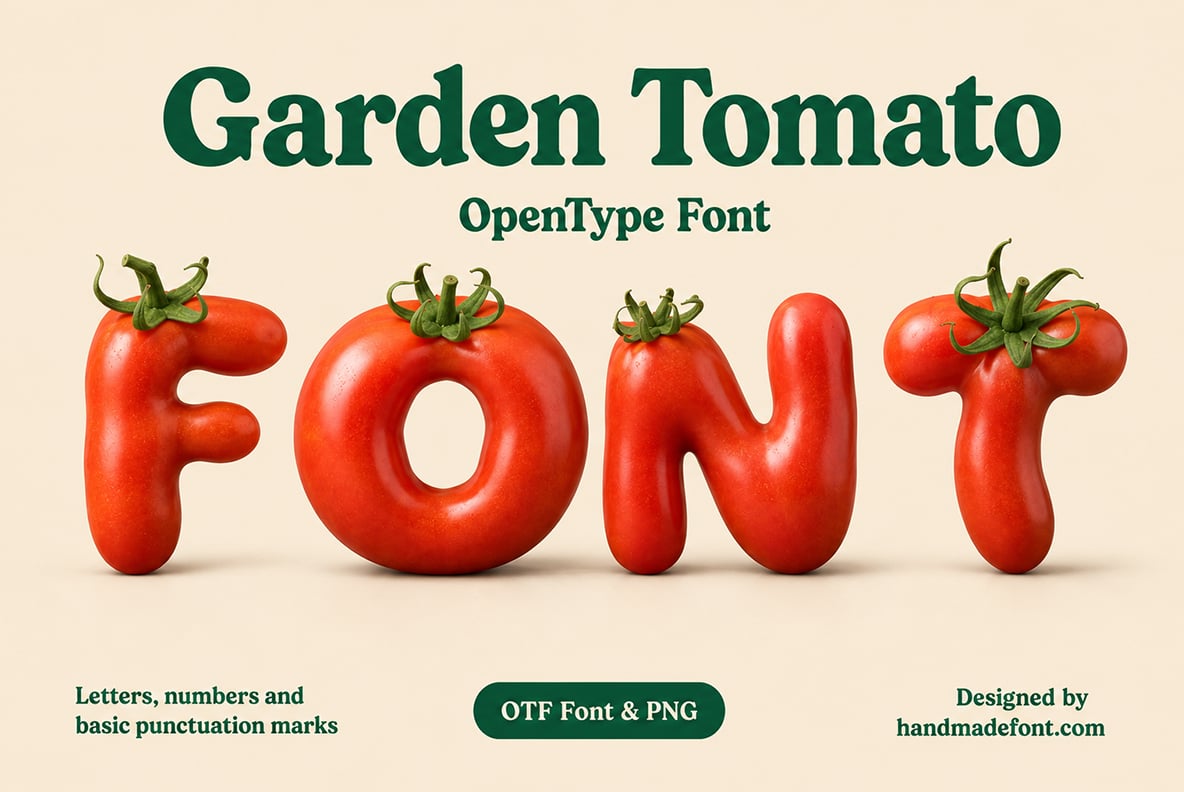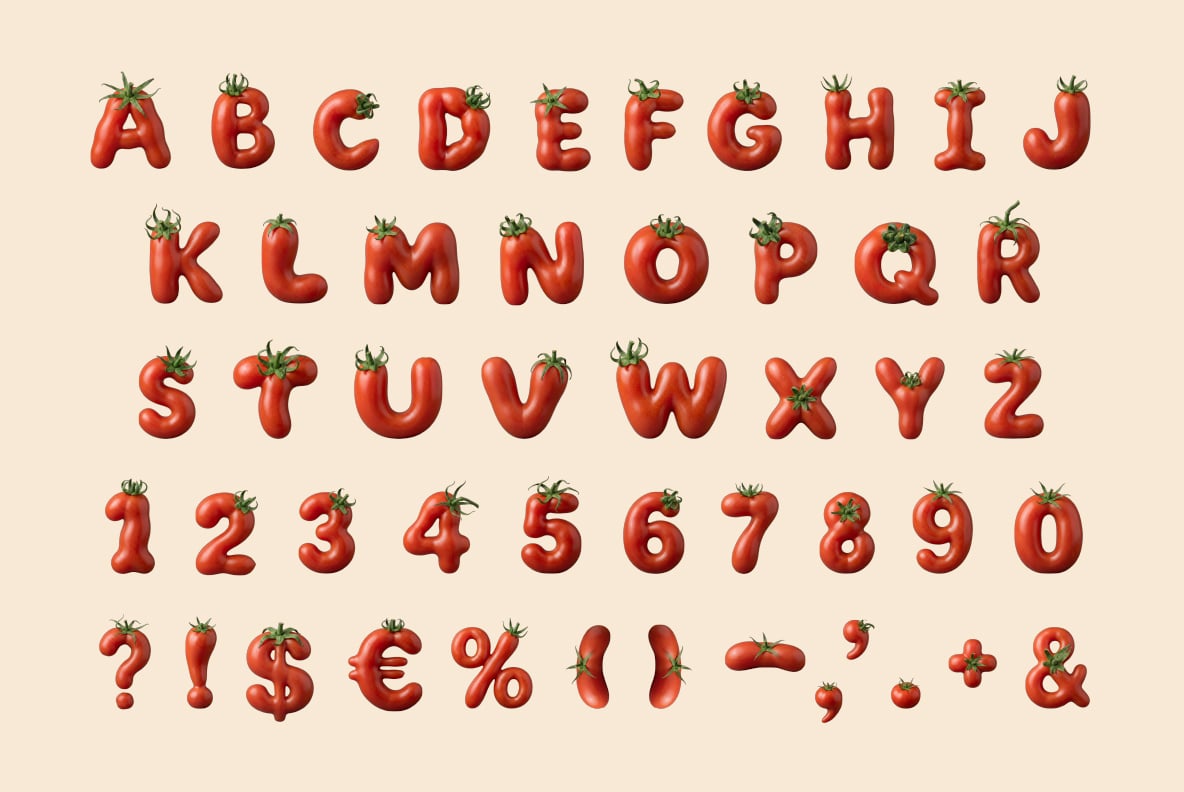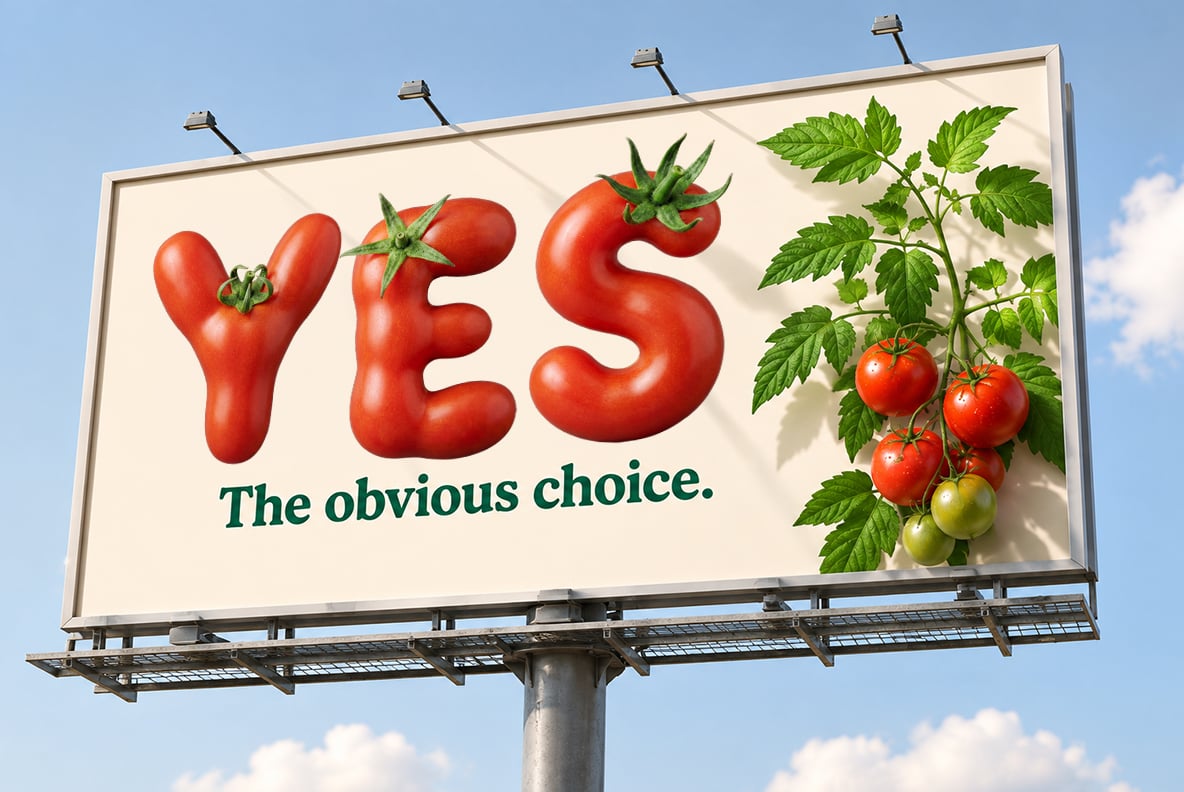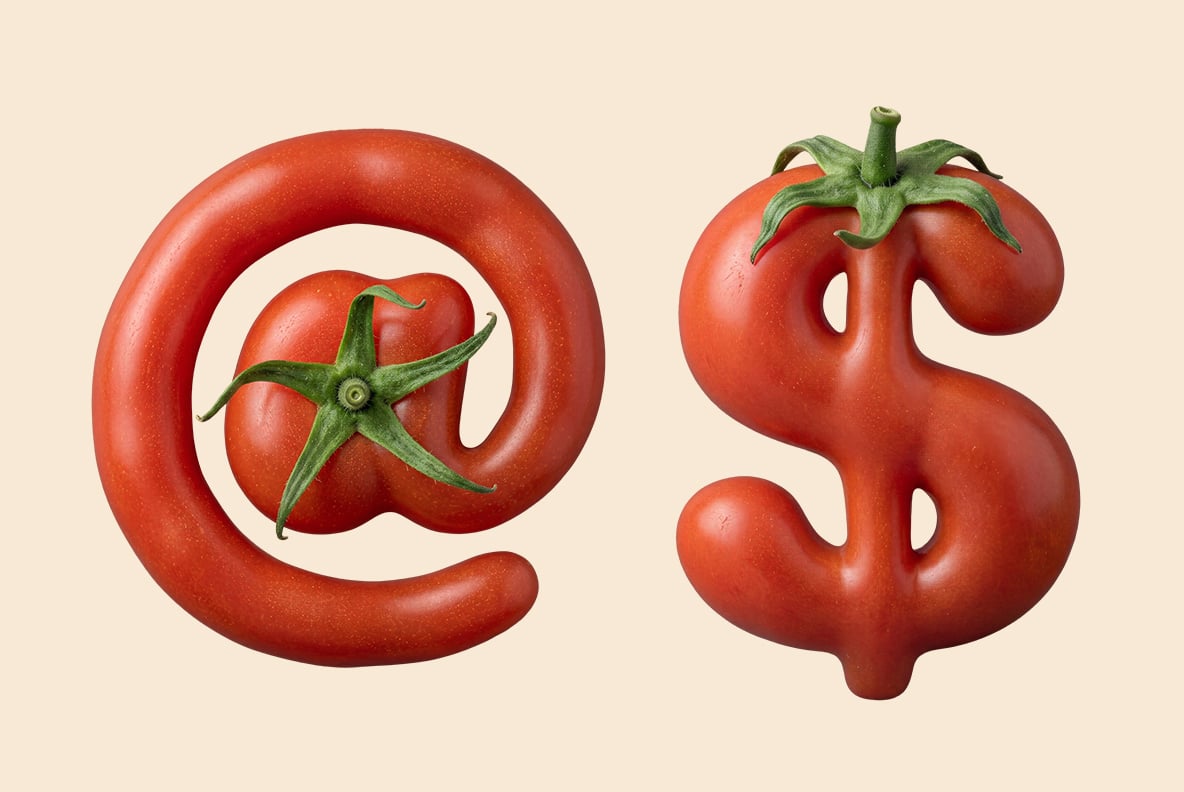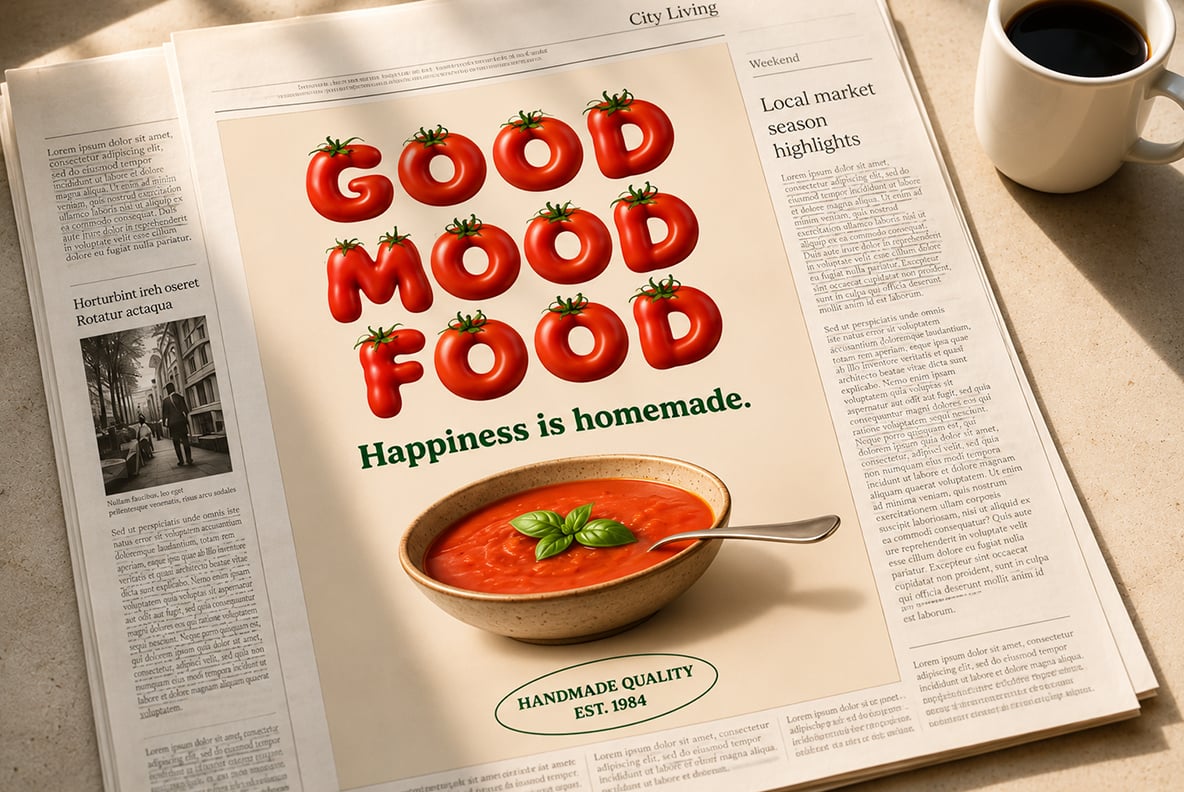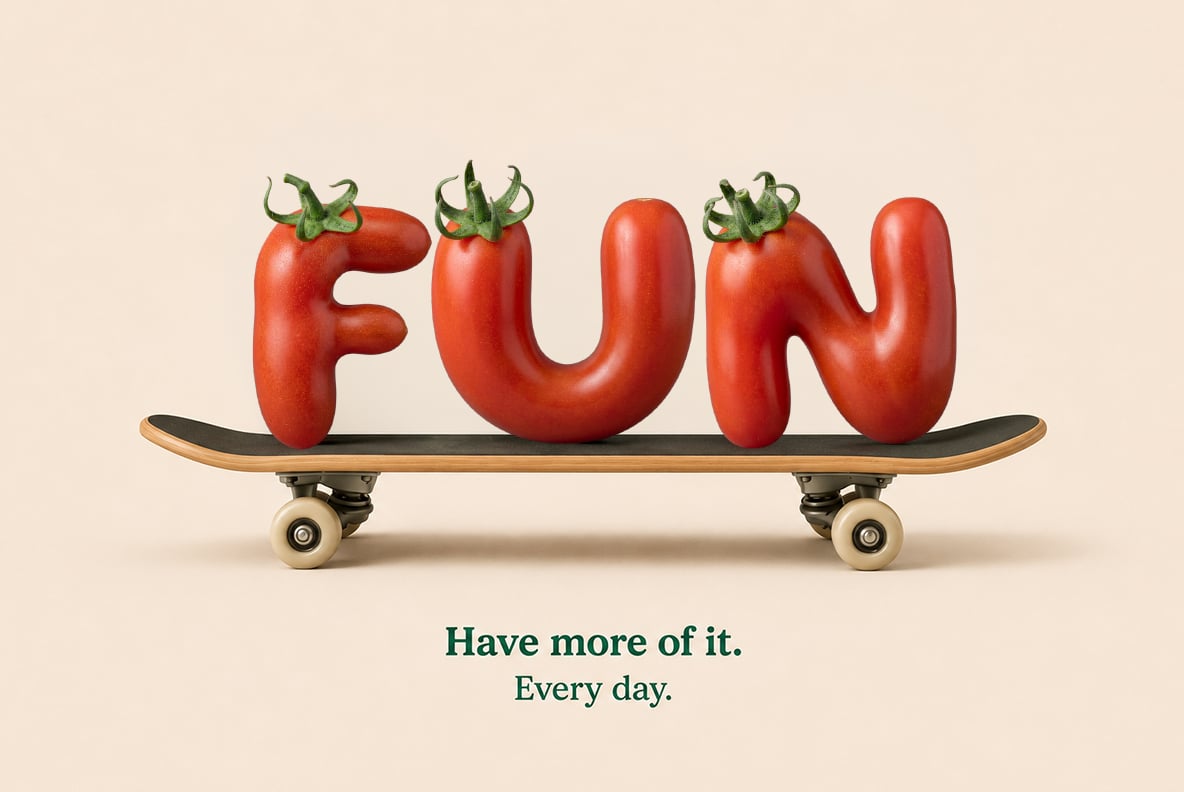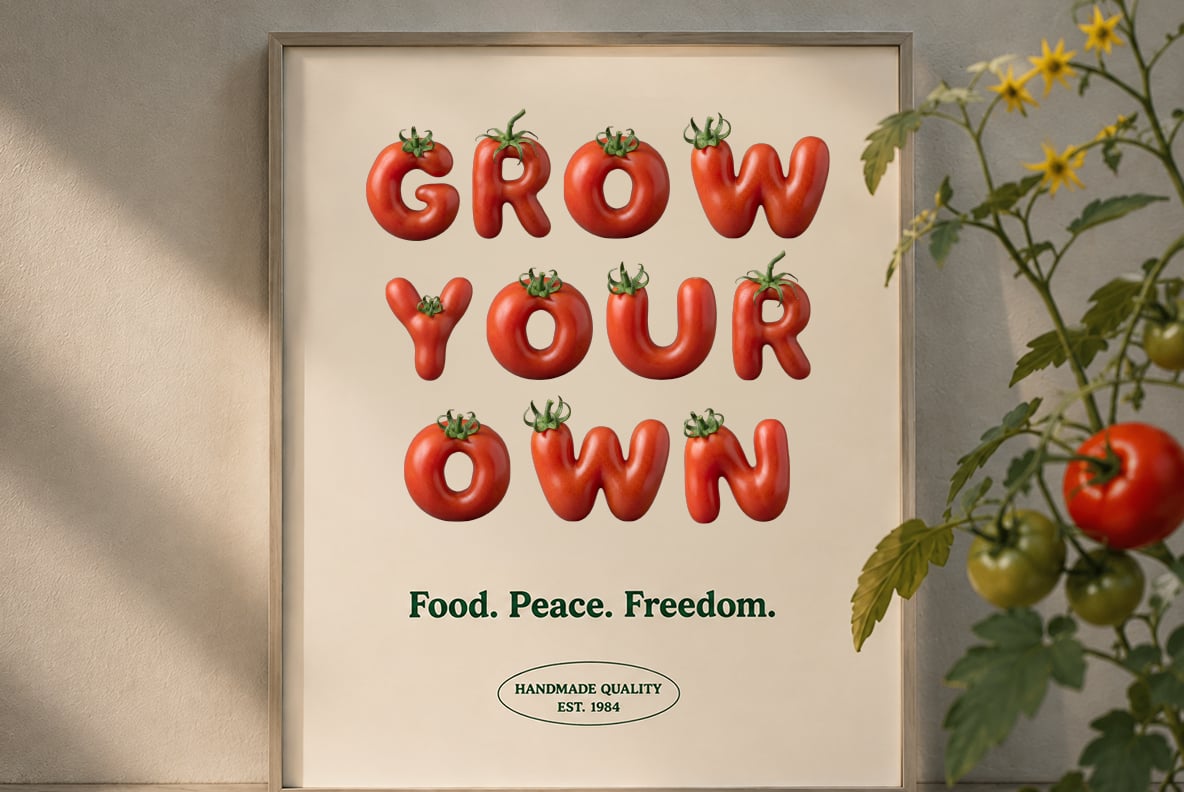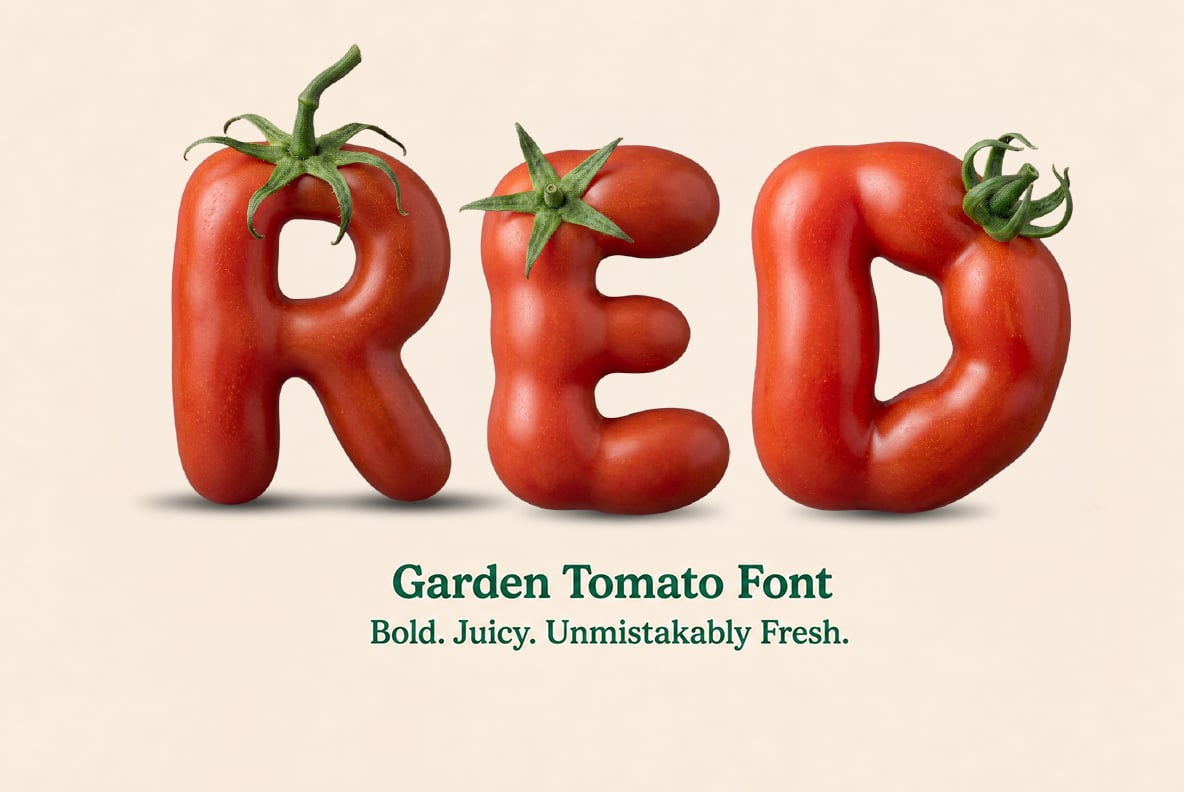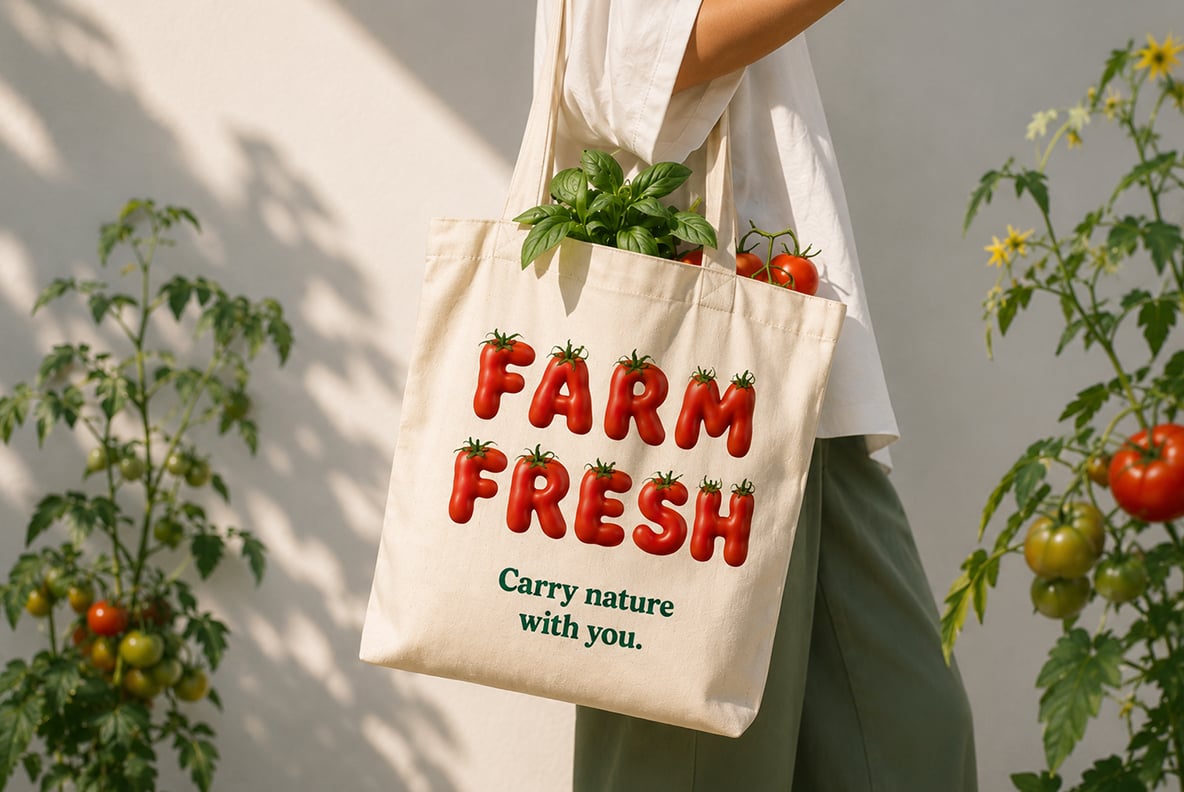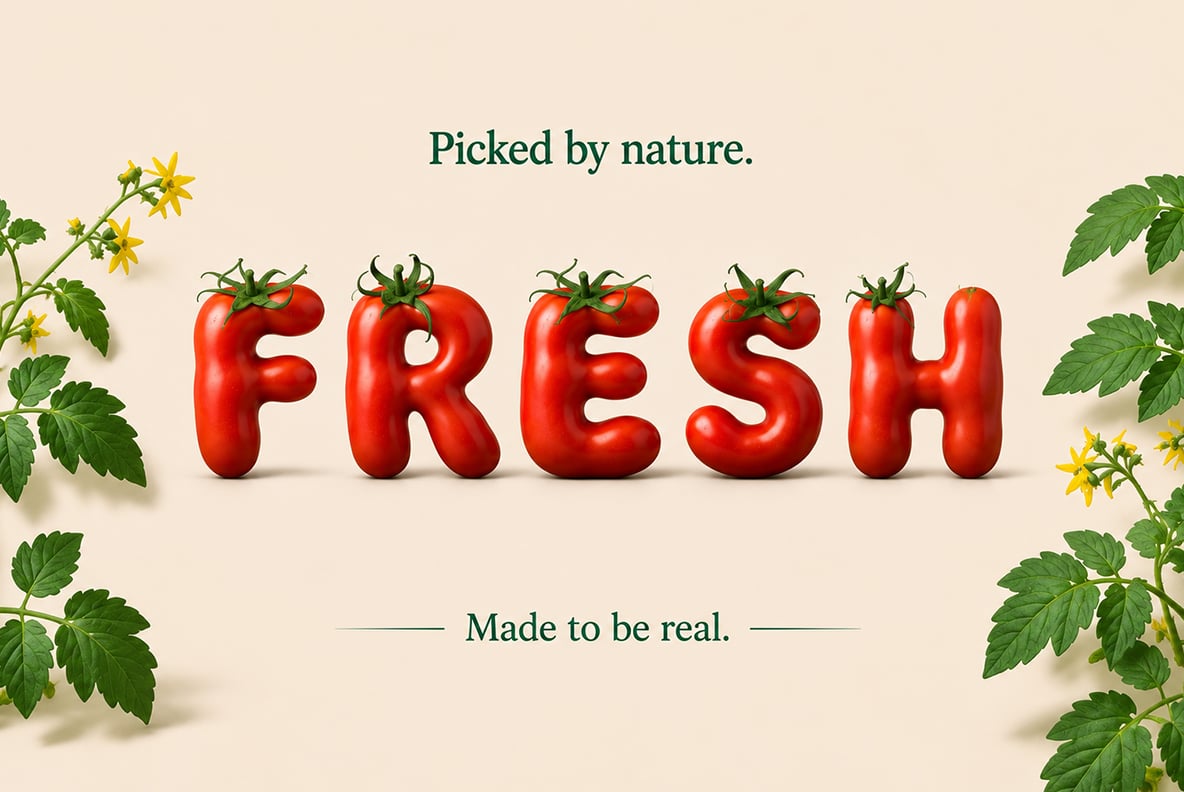
Garden Tomato Font
Garden Tomato Font brings the freshness of the garden into your typography with playful, handcrafted letters inspired by ripe tomatoes. Every character is carefully shaped to look natural while remaining highly readable and full of personality. Perfect for food branding, farmers’ markets, restaurant menus, packaging, posters, social media, labels, and seasonal designs, this typeface instantly adds warmth and organic charm. The package includes an easy-to-install OTF font for everyday use, plus every letter, number, and symbol as individual high-resolution PNG files with transparent backgrounds, giving you complete creative freedom for unique layouts, illustrations, and eye-catching visual compositions.